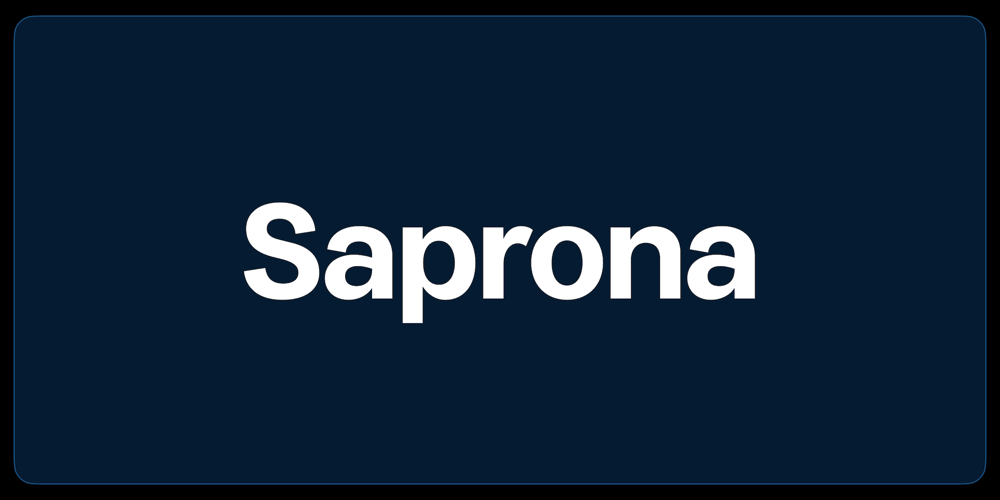
Saprona Font Family was designed by Richard Mandona and published by RichardDesignCo. Saprona contains 7 styles and family package options. Saprona is a powerful sans-serif with a curved terminals, a tall x-height, narrow letterforms and seven weights.400 Glyphs. Extensive Language Support. 84 Languages. Advanced OT Features. 7 Weights. Fully Variable. Updates. Advanced OpenType Features include Old Style Figures, Fractions, Denominators, Numerators, Standard Ligatures, Case Sensitive Forms, Alternates to satisfy the most demanding professionals.Curved terminals and unique letterforms make for a sans serif with a unique appearance that can make your brand or design stand out.Saprona is designed to be very versatile therefore it works great in all areas whether it is Editorial Design, Graphic Design, Web Design, UI Design and Print. And is well suited for both Headings and Body Text.